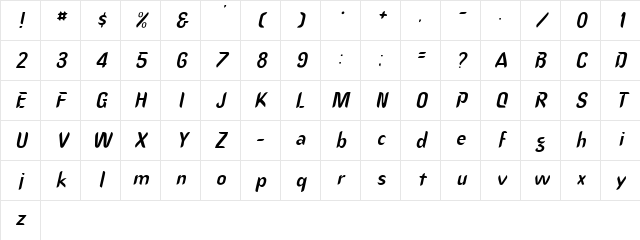
Urgo is a composed and adaptable typeface that performs quietly and consistently across a wide range of design contexts. The slanted form adds forward momentum and visual energy.
Pro Tip: Use Urgo for emphasis, pull quotes, and subheadings where its slanted energy can add rhythm to the layout.